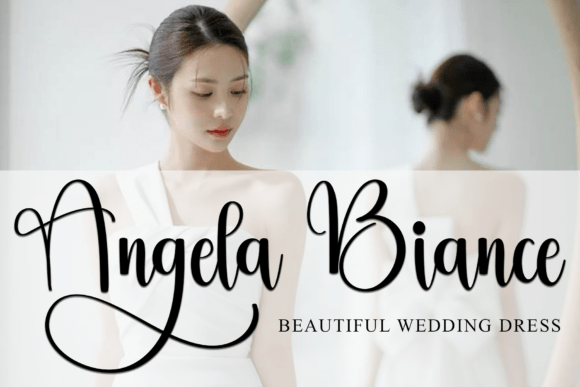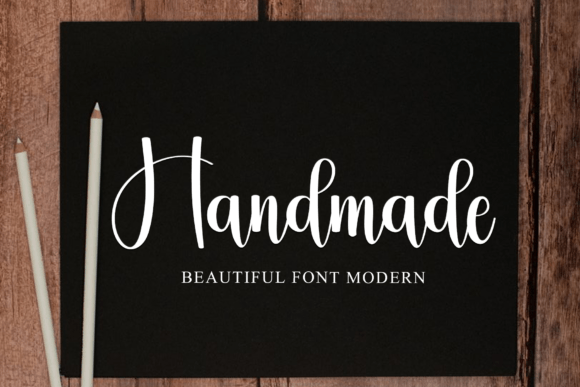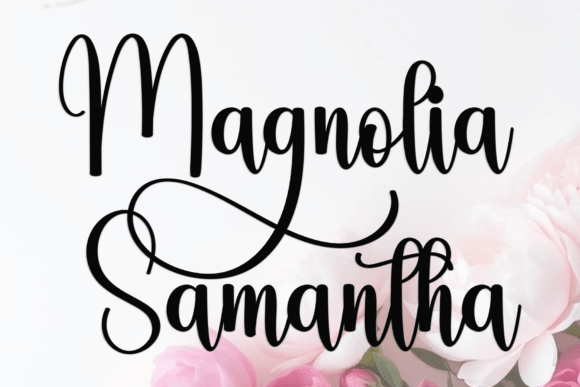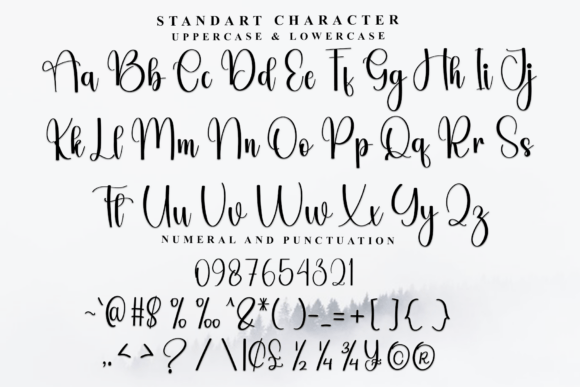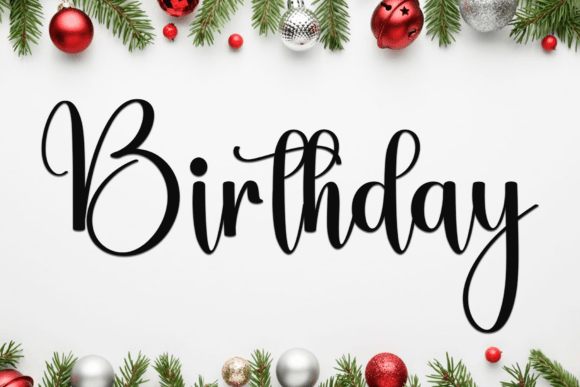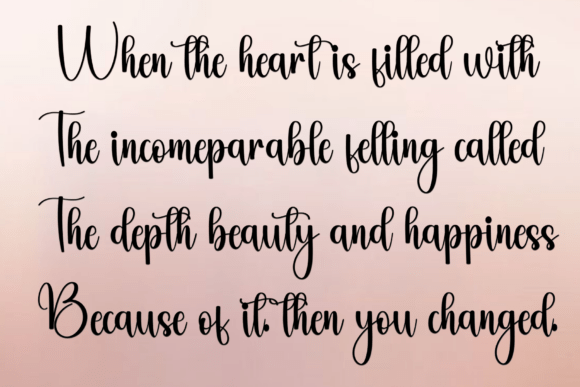
Unleashing the Playful Side of Design
You know that moment when you’re brainstorming ideas for a new project and suddenly a spark of creativity hits you? For designers, it’s that instant when everything falls into place and the perfect font pops into mind. For me, it was when I stumbled upon the Babyish Font – a charming, hand-drawn script that screams warmth and friendliness. This delightful font is more than just a pretty face; it’s a versatile tool designed to bring a smile to your audience’s faces.
Whether you’re crafting a birthday invitation, designing a social media campaign, or simply adding a personal touch to your blog, the Babyish Font is the perfect companion. Its playful strokes and relaxed feel make it an instant hit with designers seeking to inject a bit of whimsy into their projects. With its standard PUA Encoded glyphs, you can trust that this font will work seamlessly across various applications, making it a valuable addition to your design arsenal.
Babyish Font Key Features
- Unique Characteristic: Babyish Font features a playful, cursive script with rounded edges, making it suitable for children’s books, invitations, and other creative projects.
- Font Metrics: The font’s x-height is designed to be consistent across all weights, ensuring readability and legibility in various contexts.
Babyish Font Review
At first glance, Babyish Font has a certain whimsical charm to it. ✨ The rounded edges and soft curves evoke a sense of playfulness, making it suitable for children’s content or any project that needs a touch of innocence. The font is highly legible, and the spacing between characters is well-balanced.
- ✨ Excellent legibility, even at smaller font sizes
- ✨ Unique, eye-catching design that sets it apart from more traditional fonts
- ✨ Suitable for a wide range of applications, from children’s content to branding and marketing materials
However, Babyish Font also has some limitations. ⚠️ The font is not ideal for professional or formal content, as it may come across as too playful or immature. Additionally, the font’s soft curves and rounded edges can make it difficult to read at very large font sizes.
- ⚠️ May not be suitable for formal or professional content
- ⚠️ Can be challenging to read at very large font sizes
Overall, Babyish Font is a charming and unique font that can add a touch of whimsy to your project. While it may not be the best choice for every application, it’s certainly worth considering for projects that require a playful or innocent tone.
Tips for Getting the Most Out of Babyish Font
Use the Babyish font to add a playful and whimsical touch to your designs.
Pair the font with bold colors and fun illustrations to create a visually appealing design.
Experiment with different font sizes and styles to create a unique look.
Use the Babyish font for:
Children’s party invitations and decorations.
Infant and toddler product packaging and branding.
Children’s book illustrations and typography.